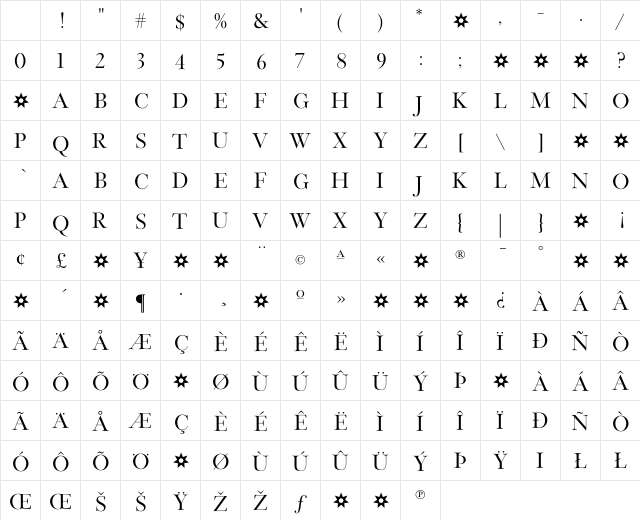
Complete Wessex RomanTitling glyph index. Displaying only characters natively supported by Wessex RomanTitling font.
Wessex is a composed and adaptable typeface that performs quietly and consistently across a wide range of design contexts.